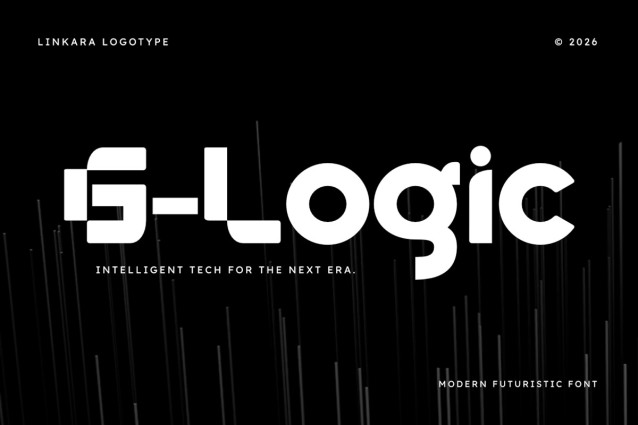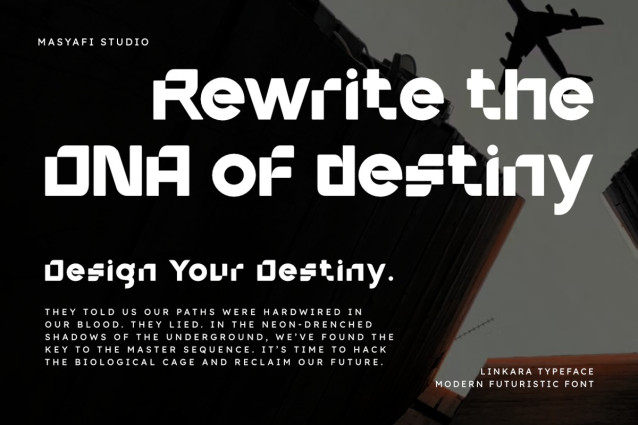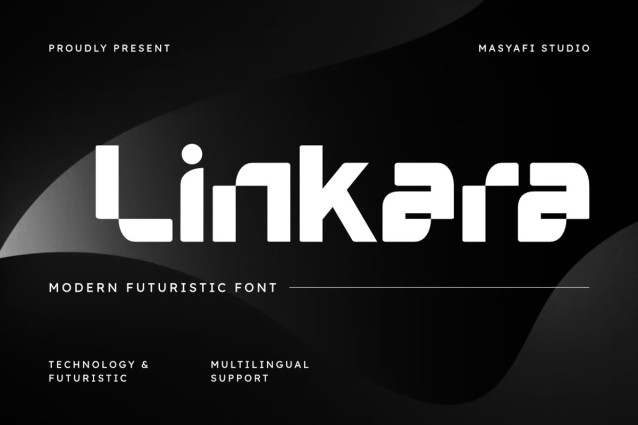
Linkara Font
Linkara Font a modern futuristic font that pushes the boundaries of contemporary typography. Designed for the forward-thinkers, Linkara features a sophisticated blend of solid geometric blocks and minimalist gaps, creating a sense of speed and digital precision.
Whether you’re building a brand for a tech startup, designing esports merchandise, or creating immersive web headers, Linkara provides the professional edge needed to stand out in a crowded market. Its “tech-heavy” look makes it an essential asset for any sci-fi or innovation-themed project.